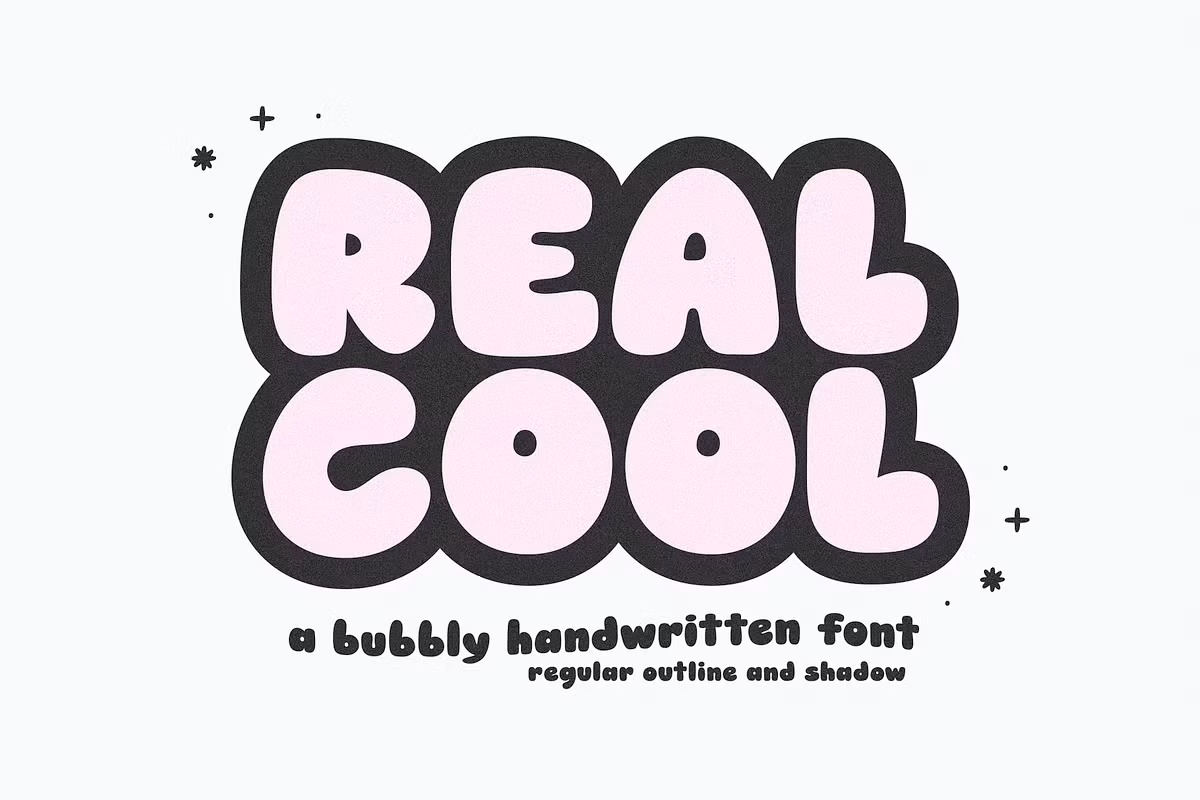
Real Cool | Bubbly Retro Font Free Download
Real Cool | Bubbly Retro Font Free Download is a fun-loving, nostalgic typeface bursting with personality and vintage flair. Please note, you are required to purchase this font for commercial use. It is available for free download for testing and personal projects only.
With its rounded curves, groovy shapes, and bold bubble style, Real Cool is perfect for 70s-inspired branding, posters, music covers, t-shirts, and playful social media content. It adds a cheerful, eye-catching vibe to any project, instantly transporting your designs back to the retro golden age.